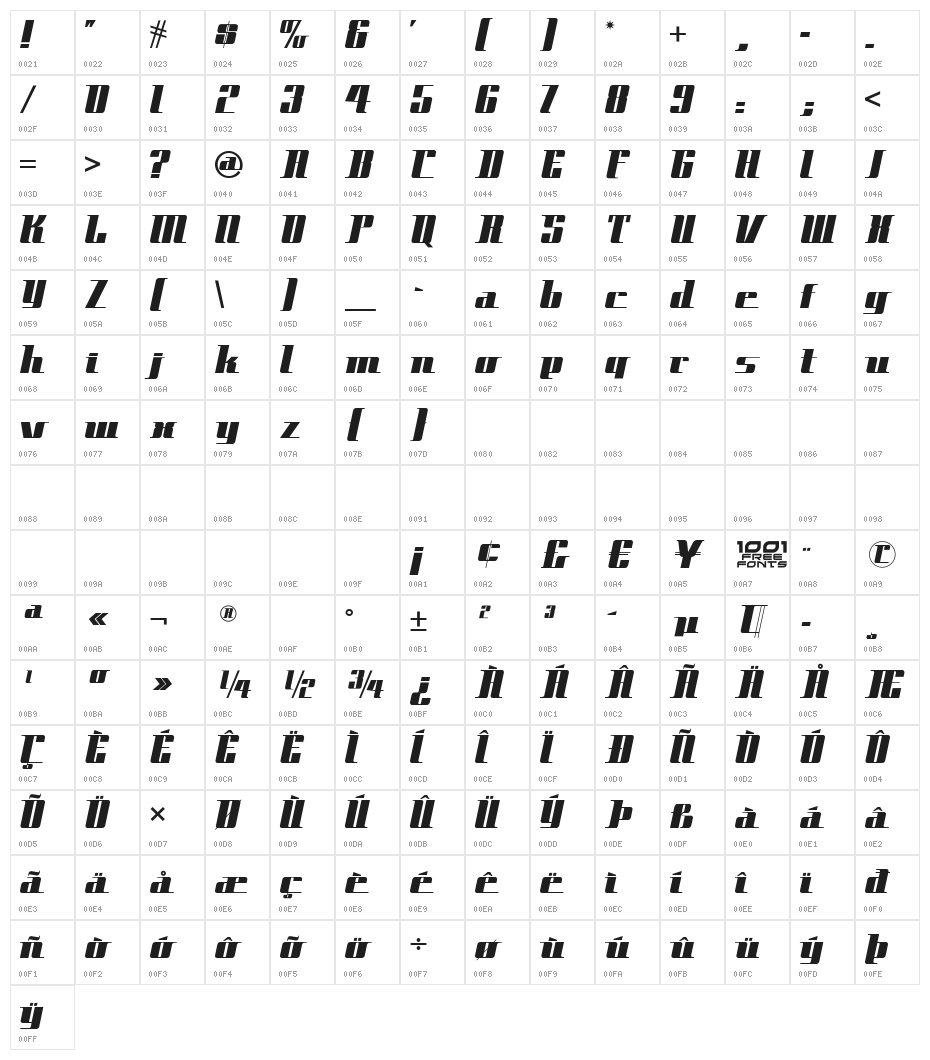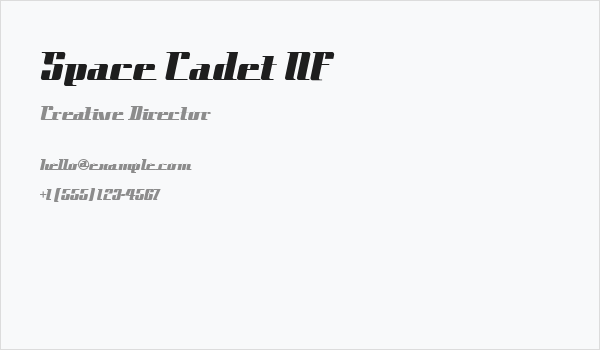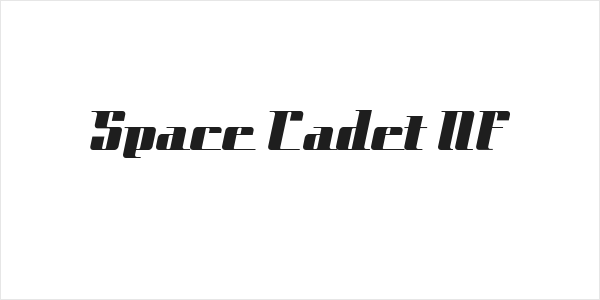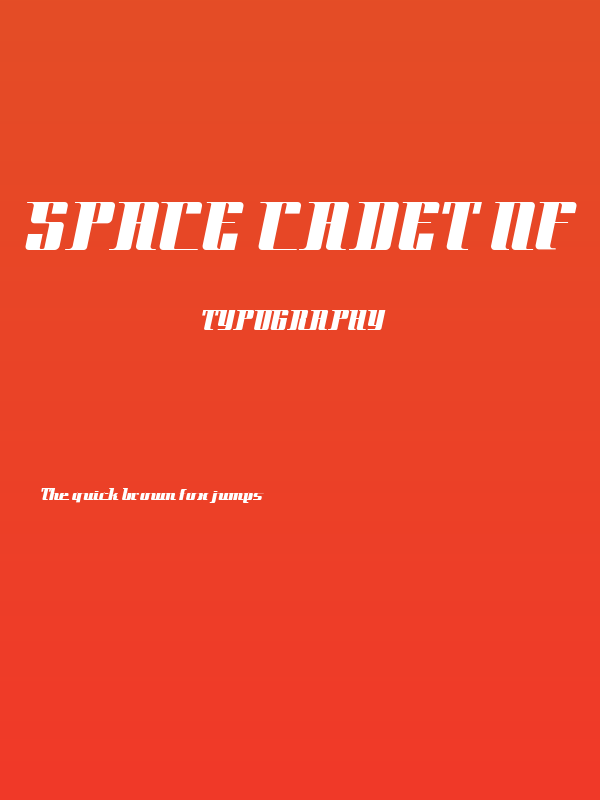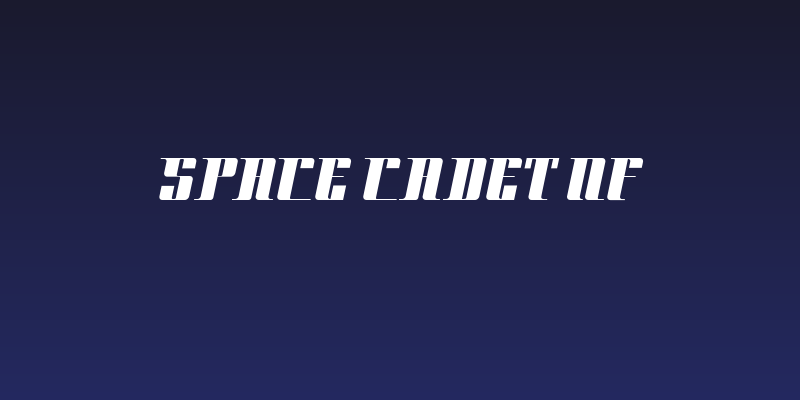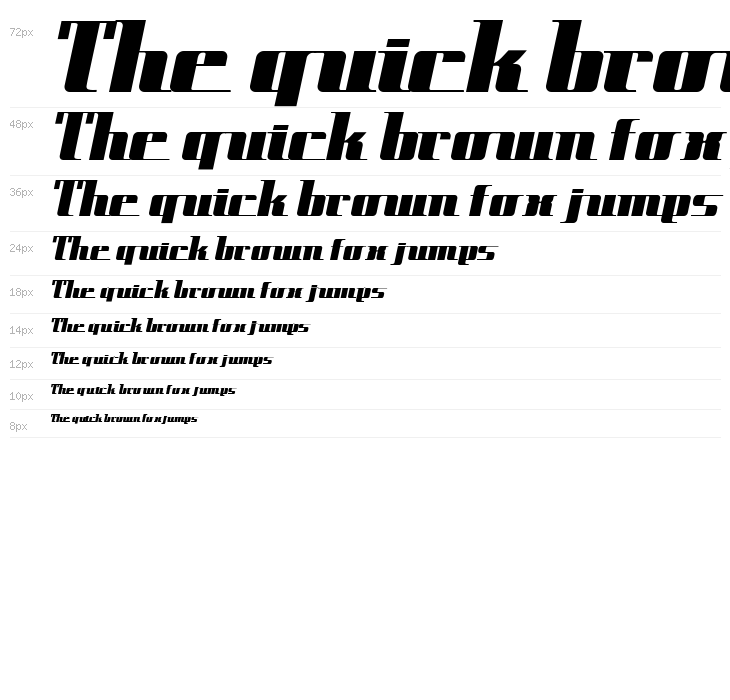
Space Cadet NF Font
Space Cadet NF Description
This font features a bold and futuristic design with sharp, angular edges and a distinct slant, giving it a dynamic and forward-moving appearance. The uppercase letters are tall and commanding, while the lowercase letters maintain a consistent style with a slightly more compact form. The numbers and special characters are designed to match the overall aesthetic, providing a cohesive look. The font's strong geometric shapes and high contrast between thick and thin strokes make it stand out, ideal for projects that require a modern and edgy feel.
| Proposed Projects | Ideal for sci-fi themed designs, technology branding, video game titles, and modern posters. |